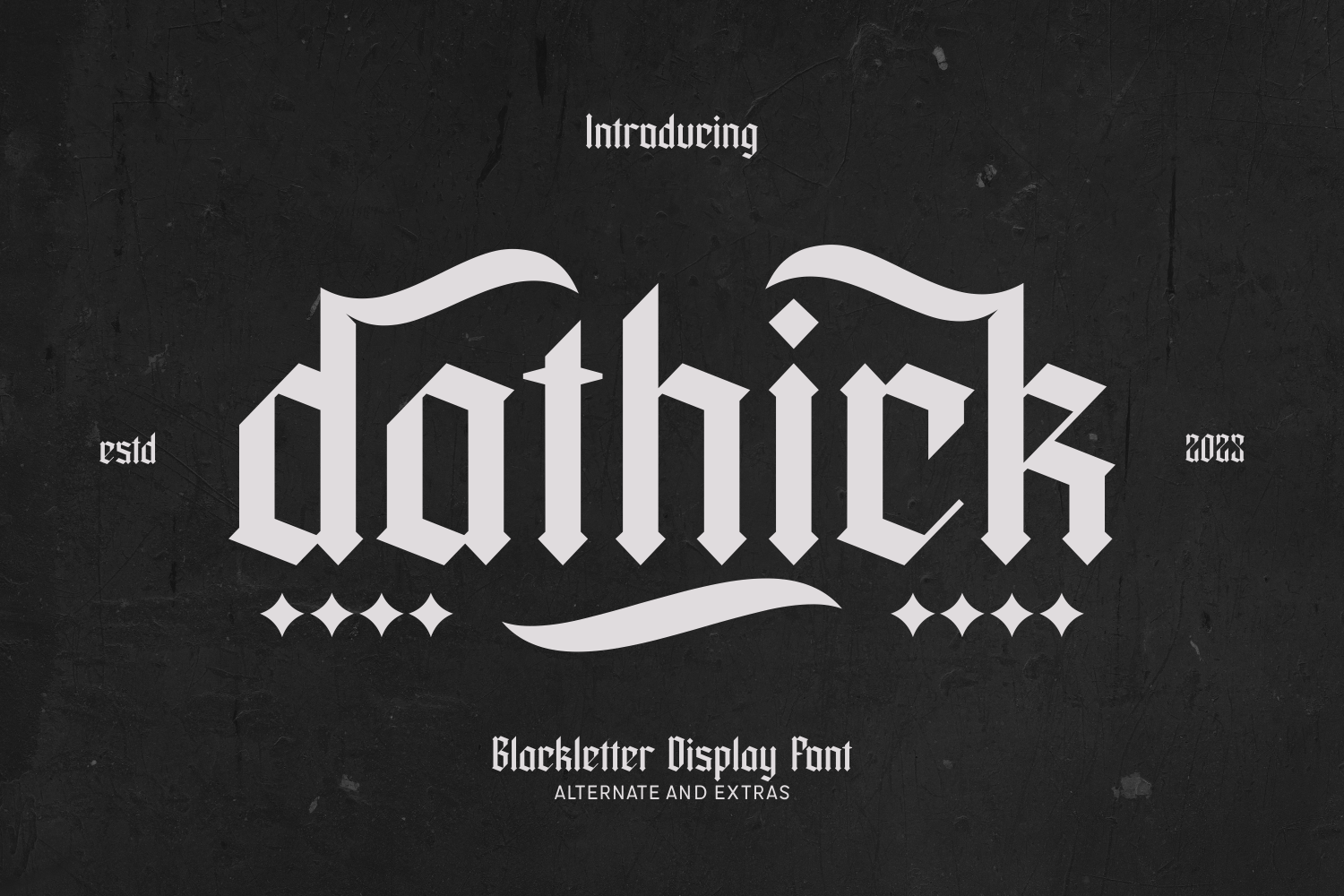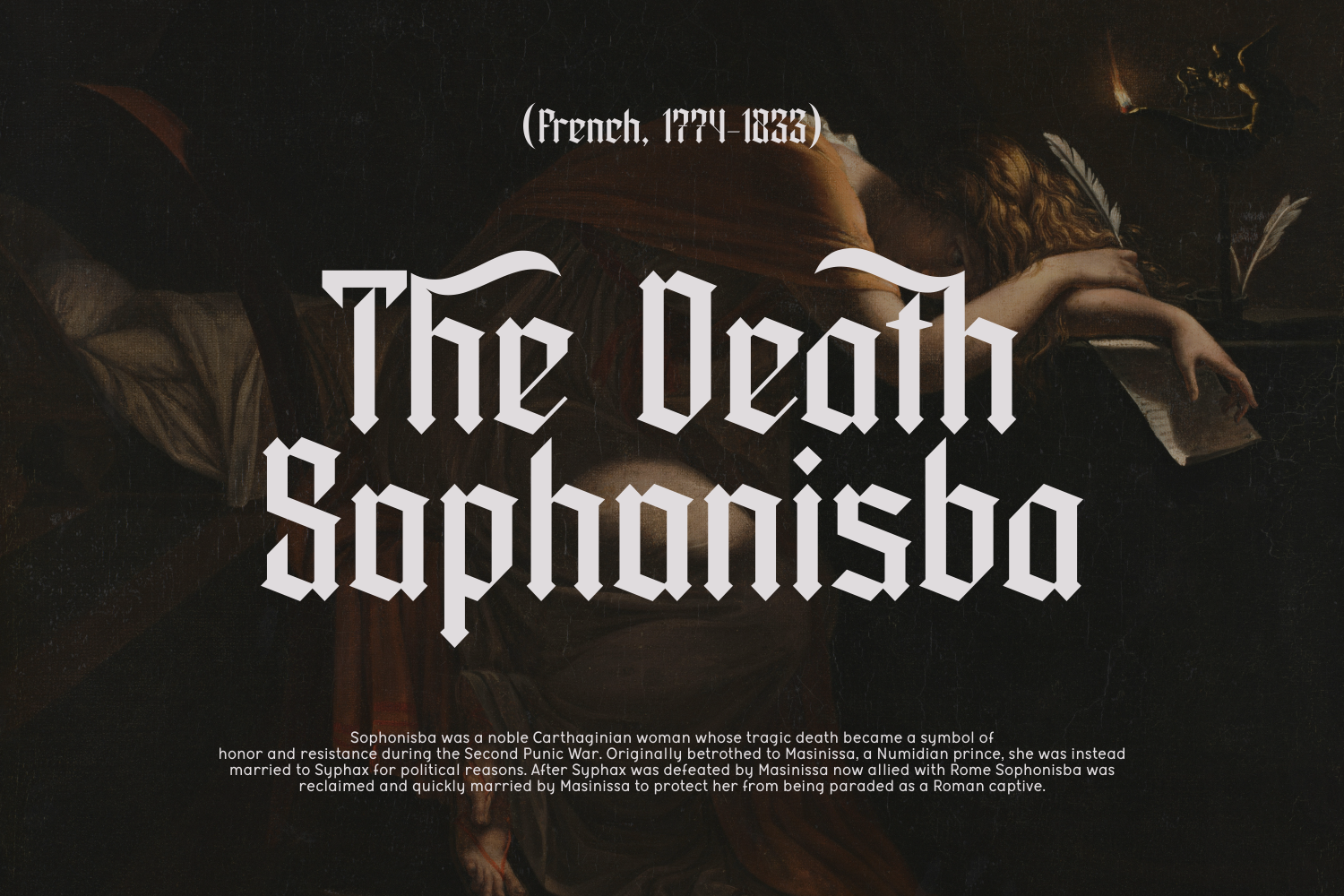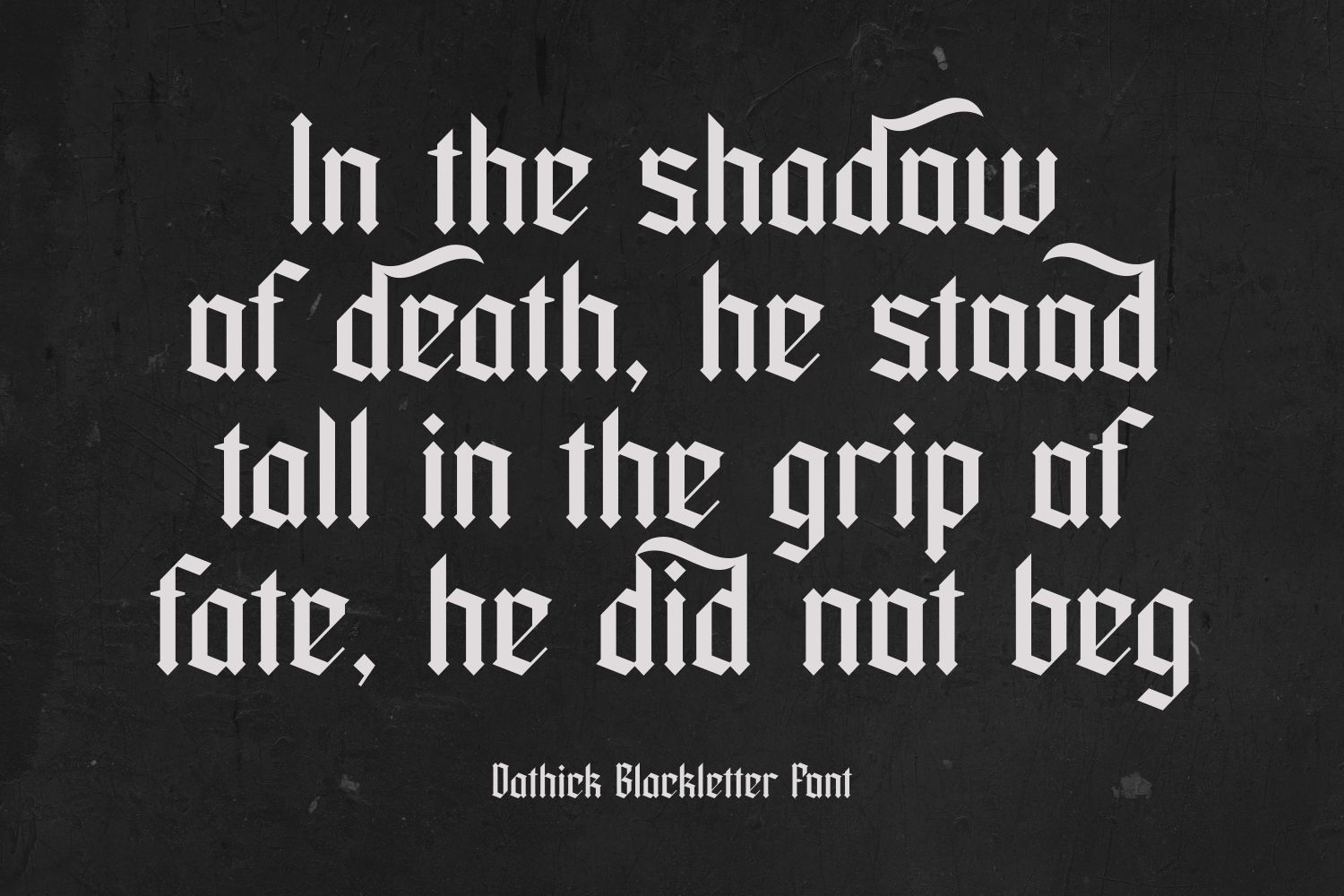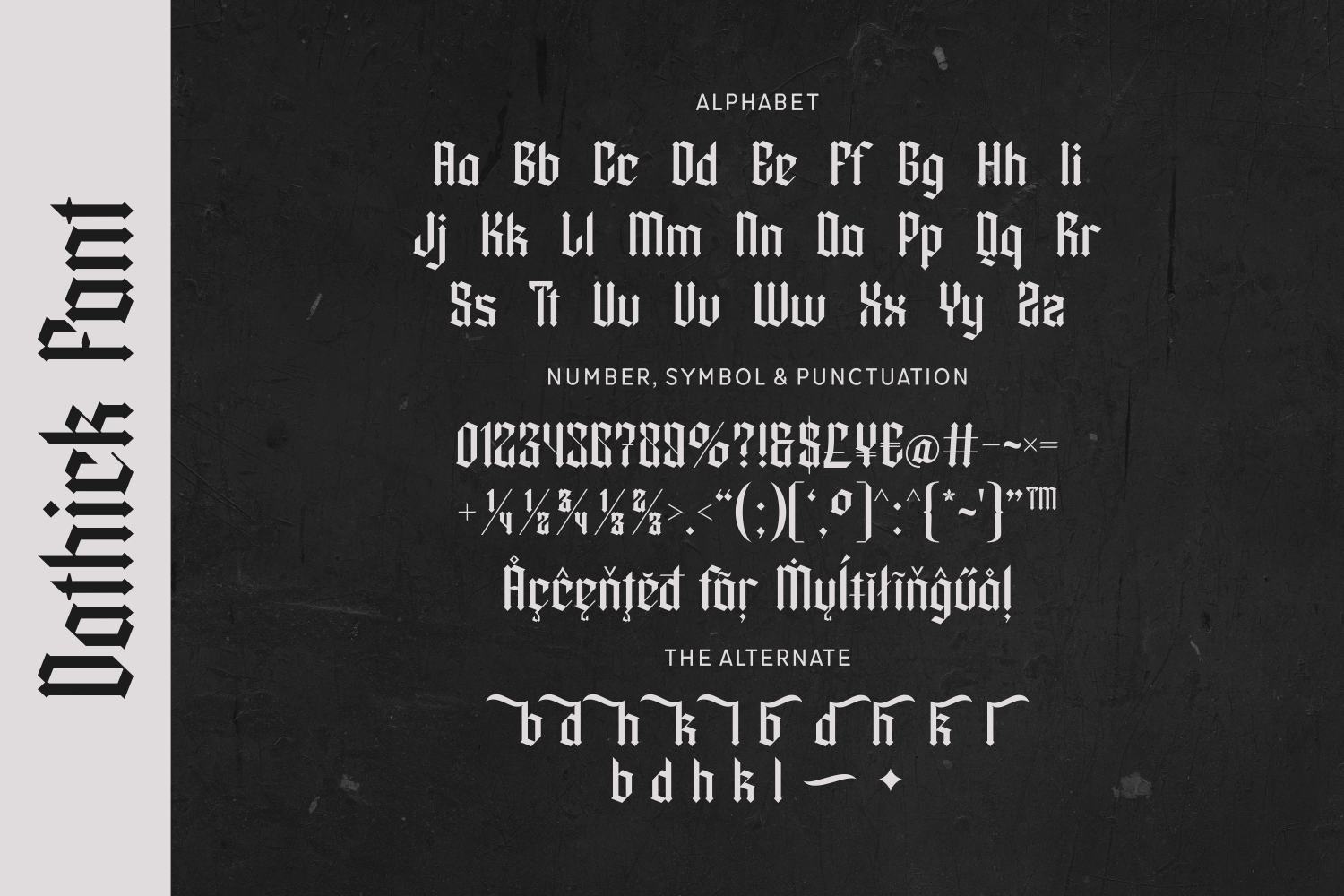
Dathick is a powerful, ornamental blackletter display font with bold strokes, intricate swashes, and medieval flair. Perfect for tattoo designs, band logos, streetwear branding, or anything that demands a dramatic gothic edge. Featuring alternate characters and extras, Dathick is built for statement-making creativity.